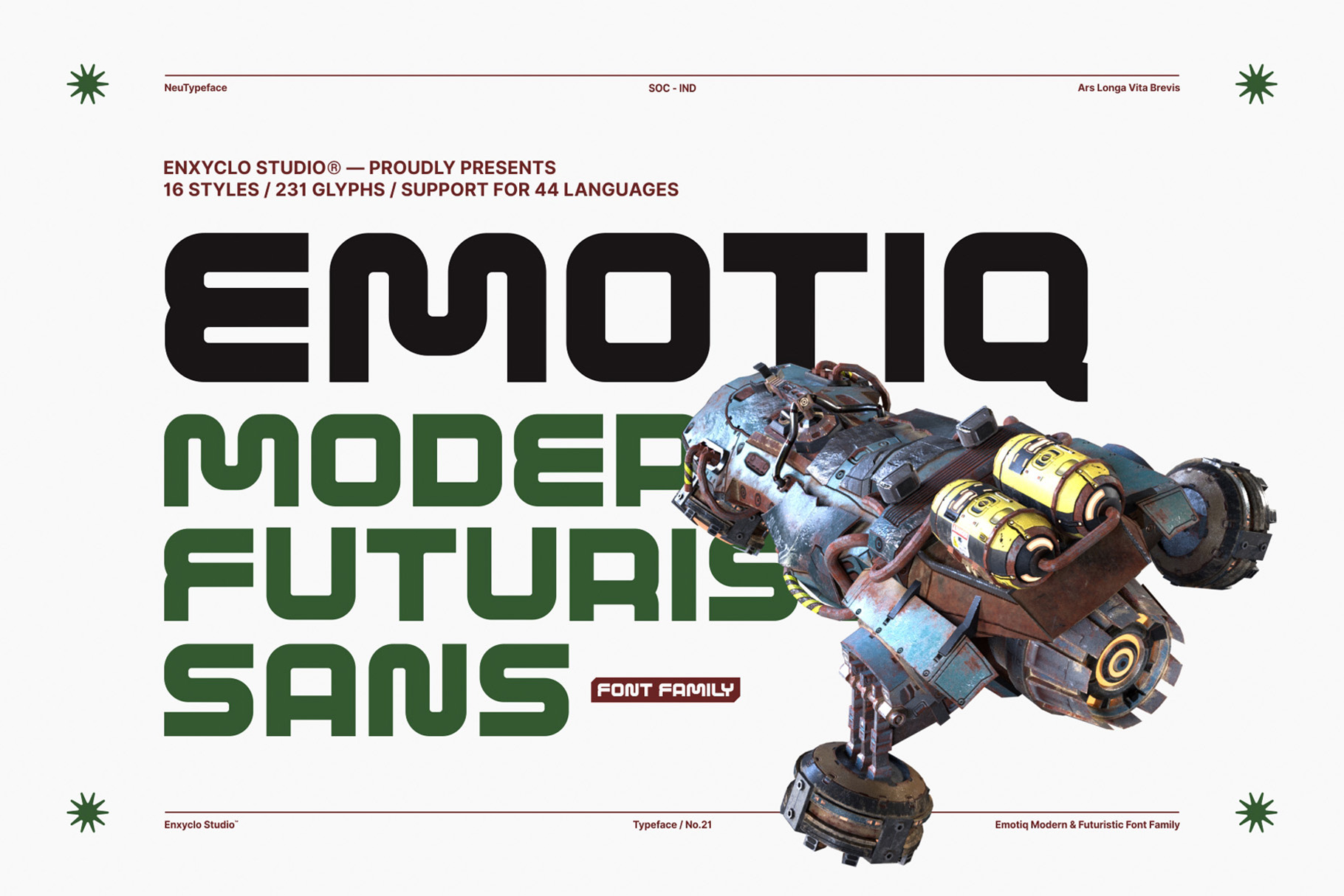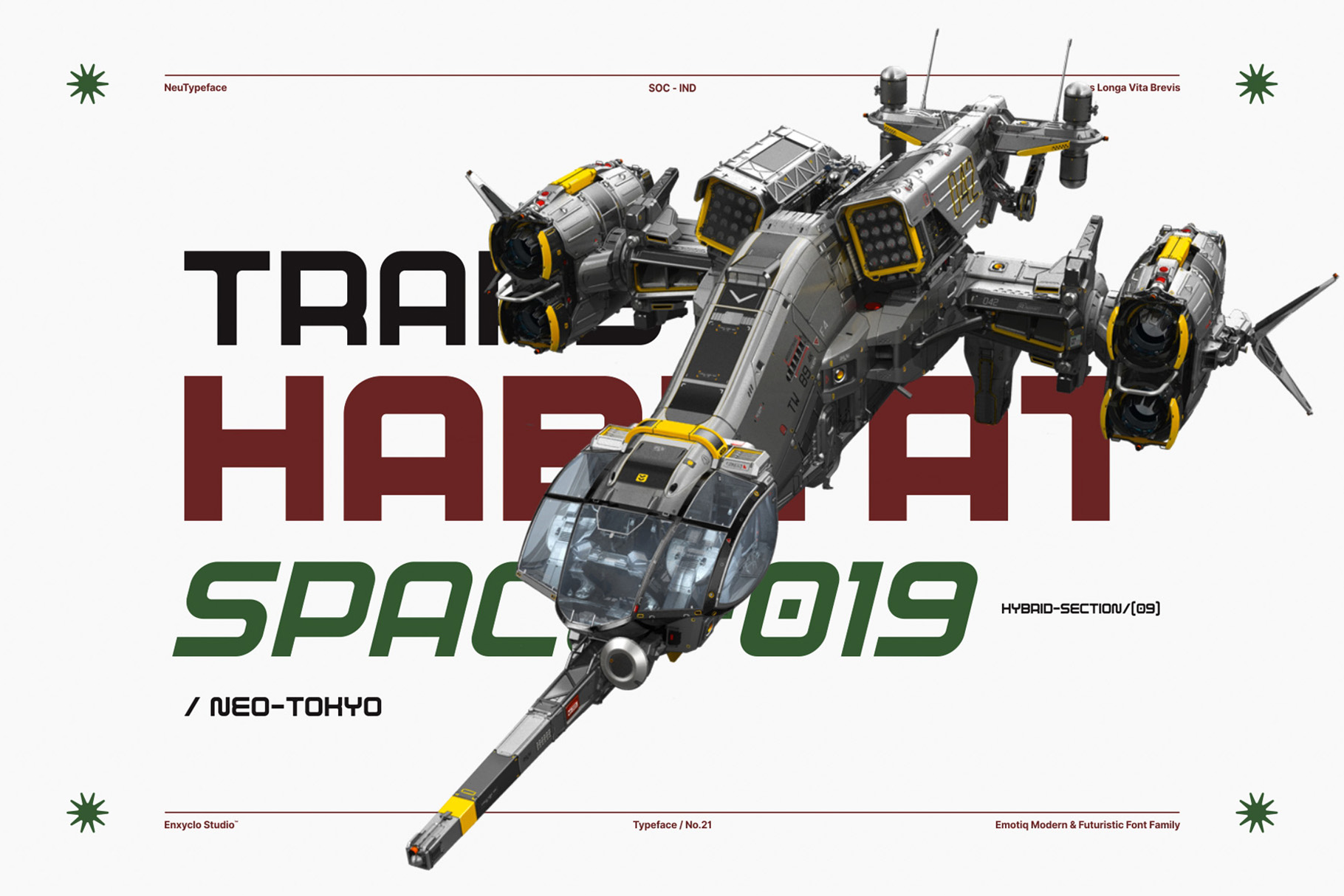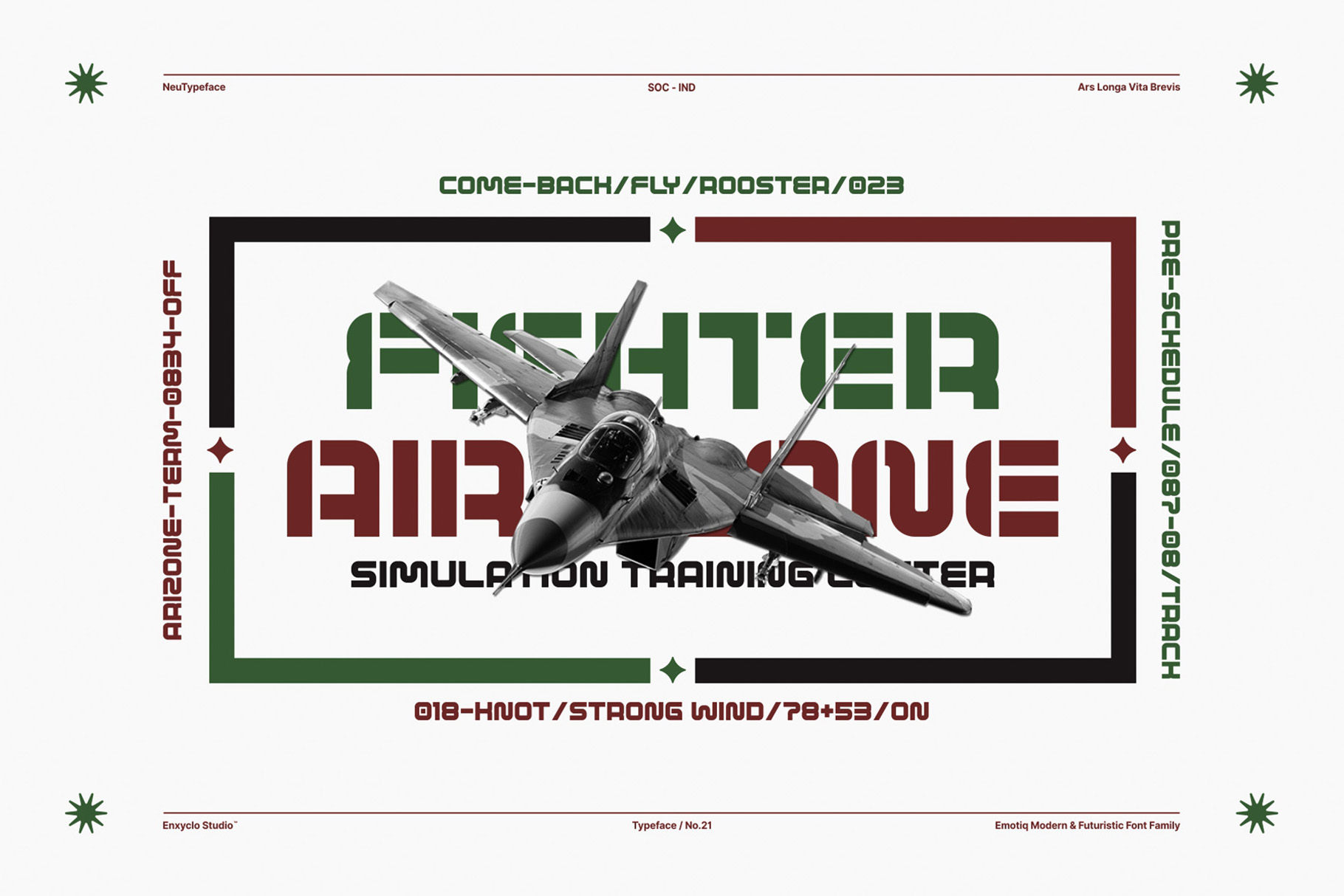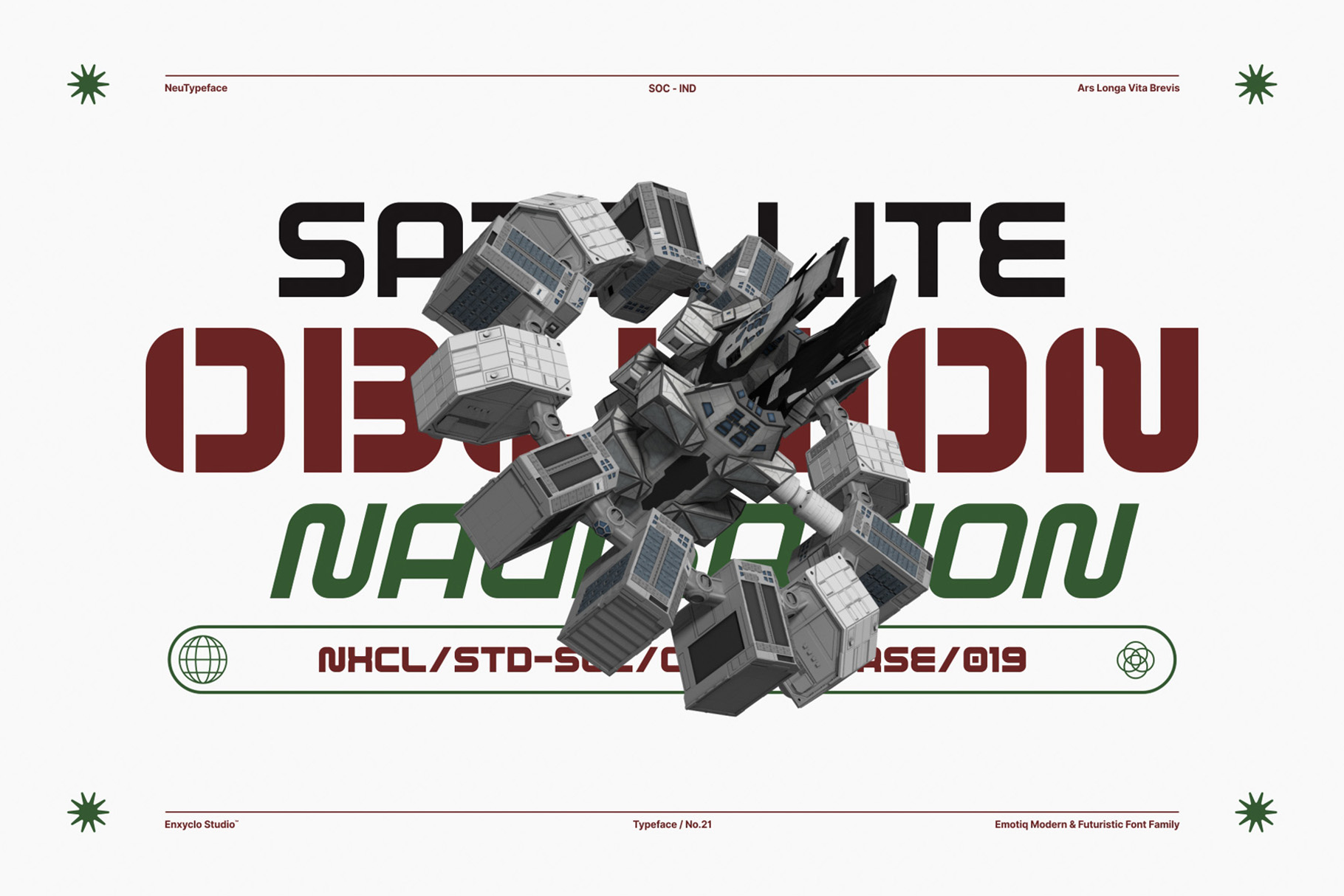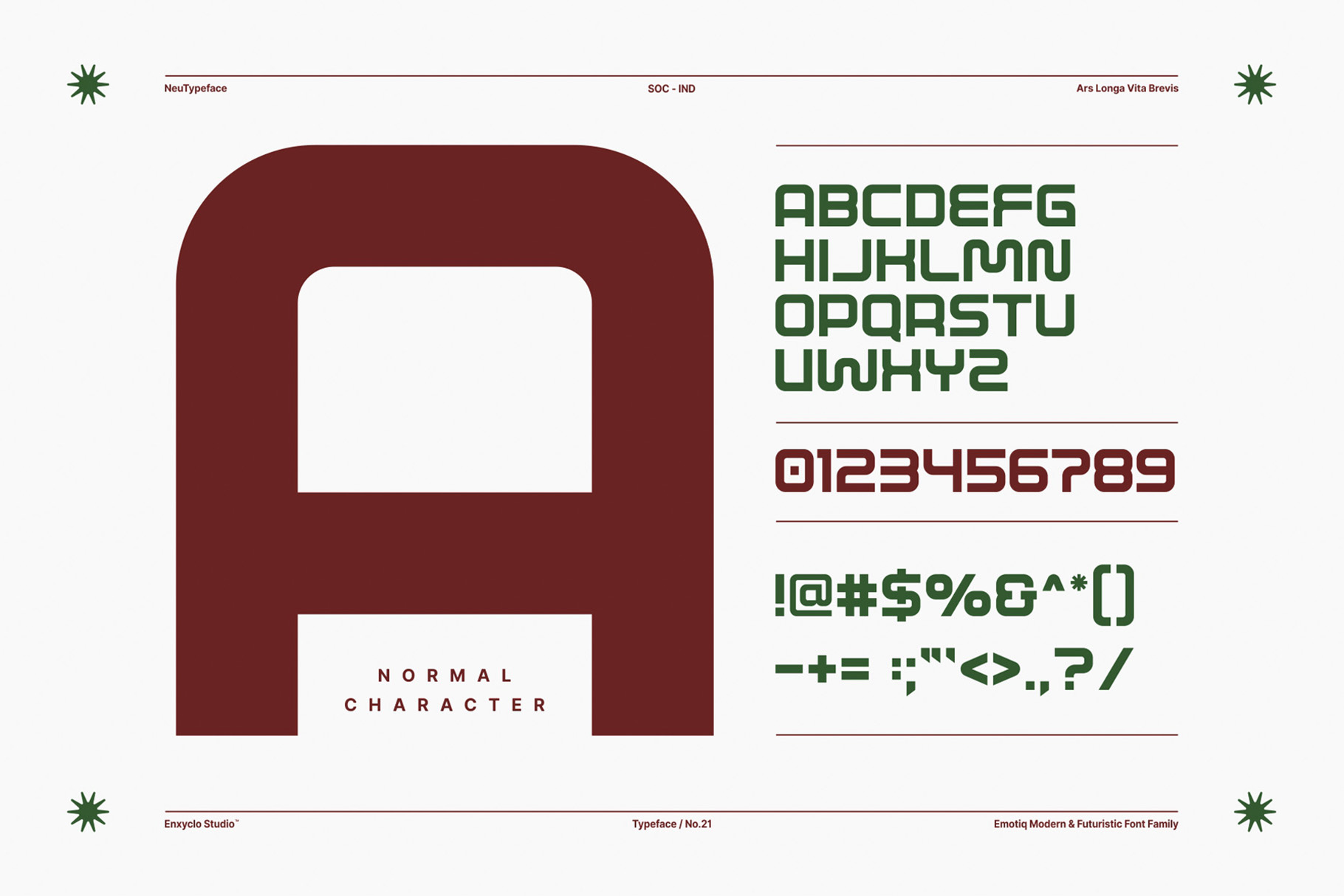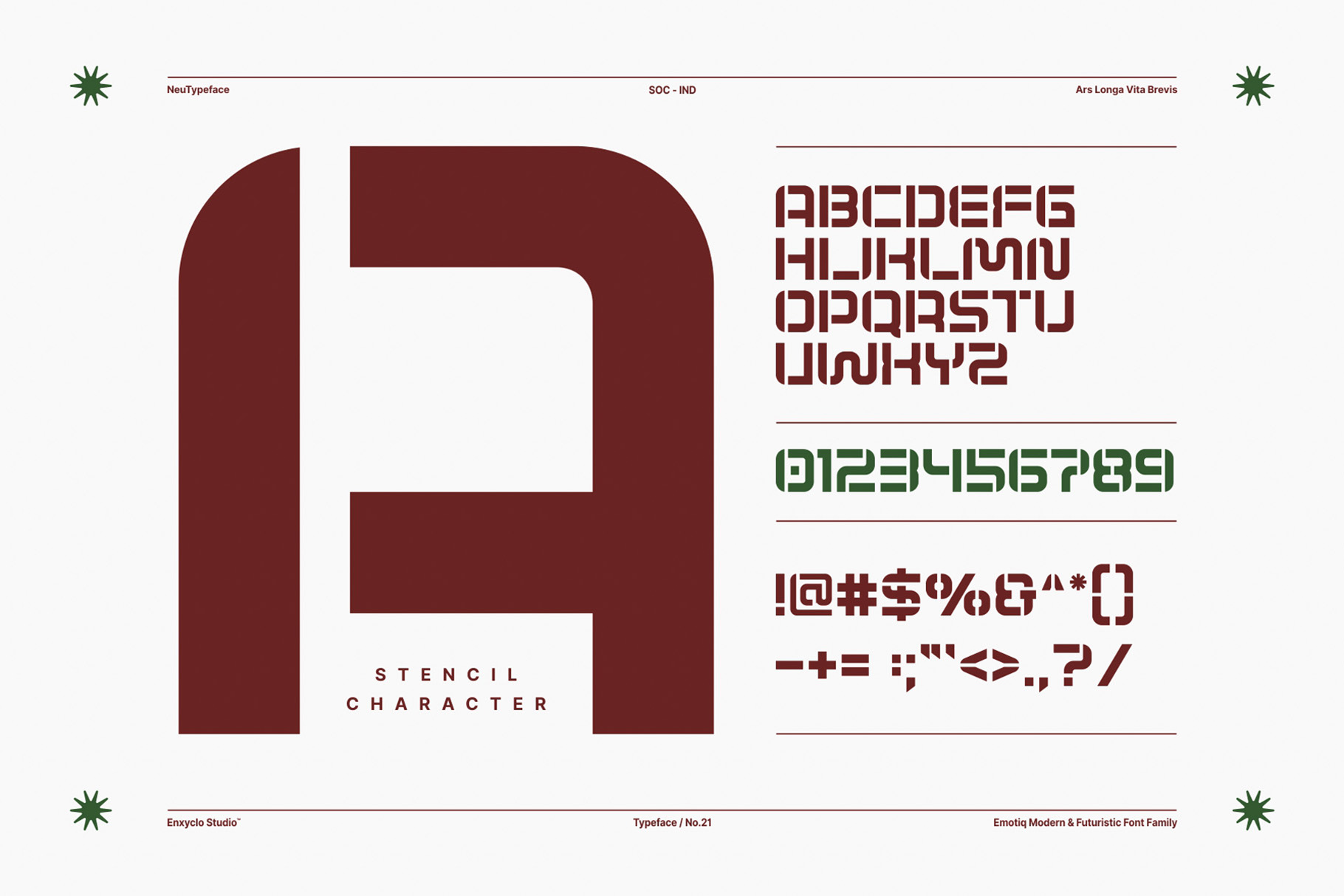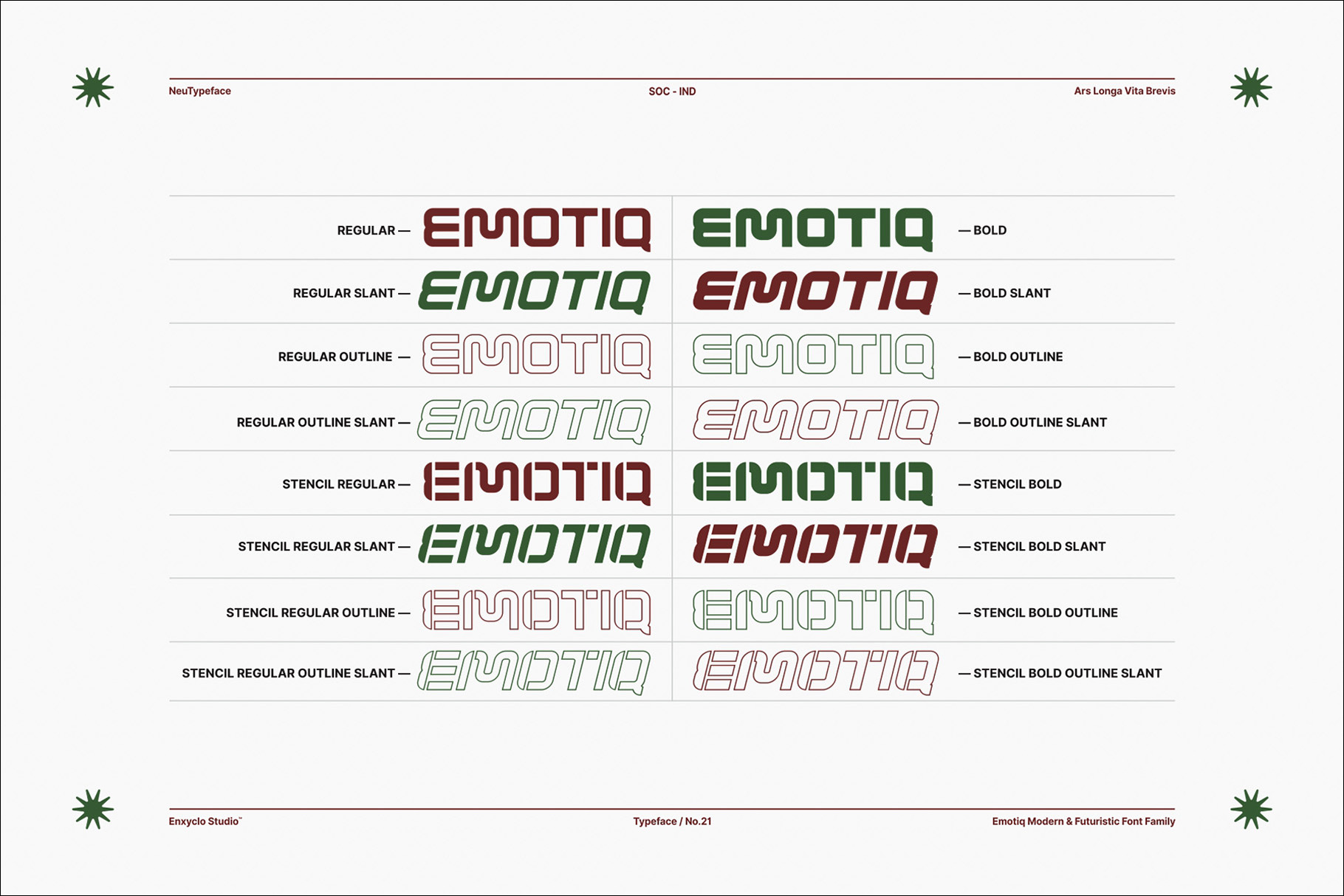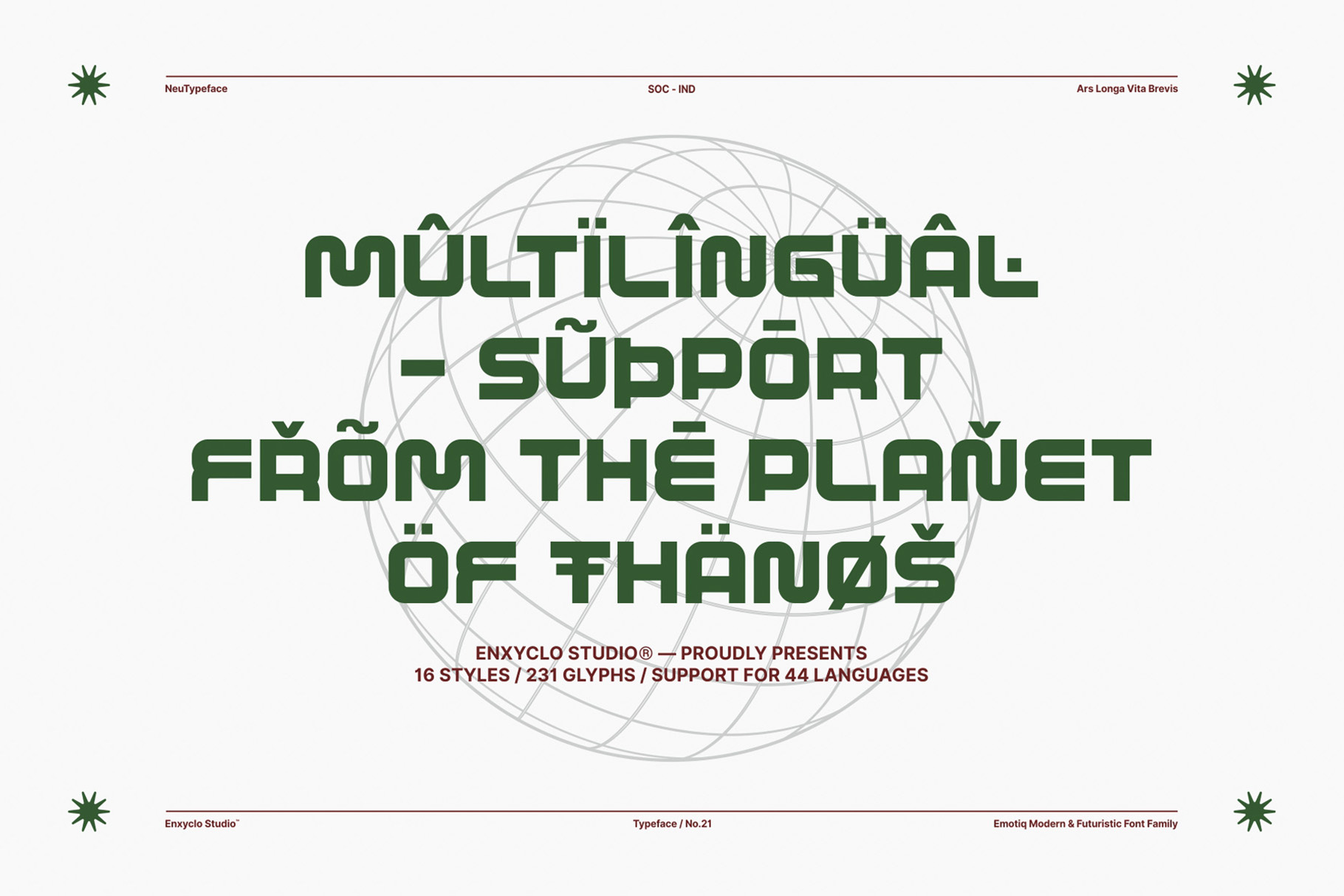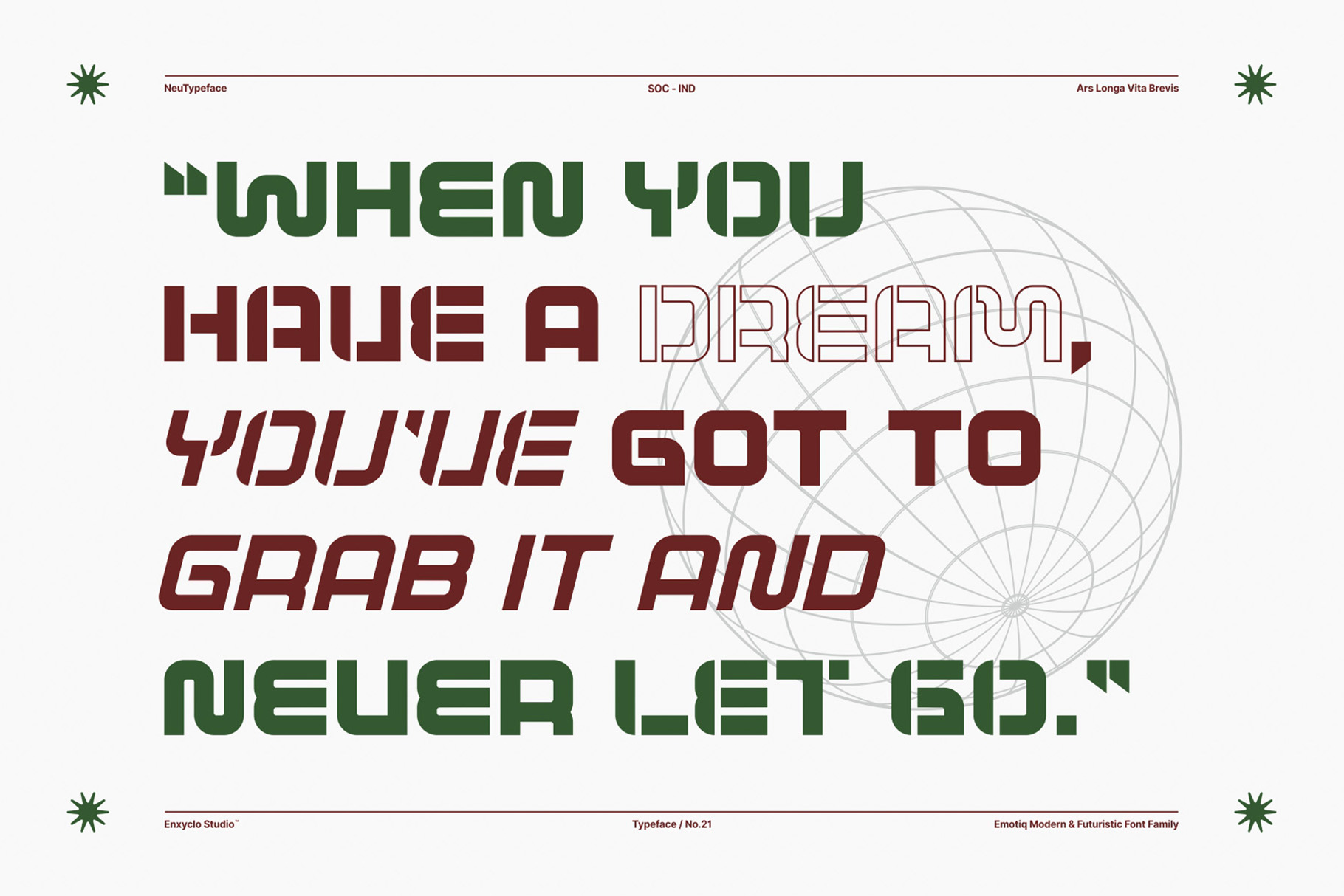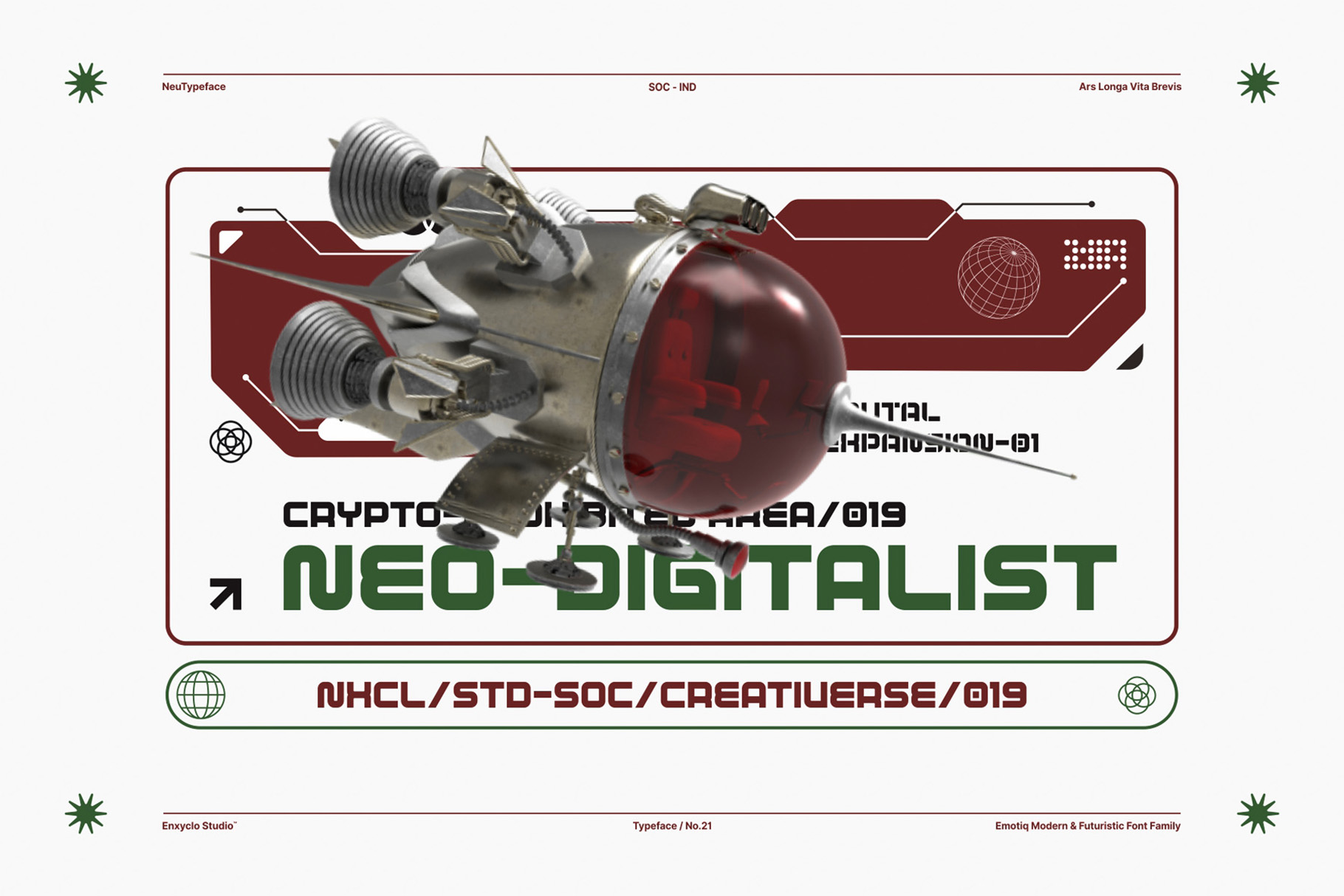
Emotiq – Futuristic Techno Cyberpunk Font
EMOTIQ is modern and futuristic sans display font with multiple styles. With this unique typeface, you can be even more expressive in your design projects. It is perfect for headline, billboard, magazines, website, titles, poster, branding, and logos. With this beautiful font, absolutely you can make your project stand out from the rest. See the previews above to get some inspiration on how to use them.
16 Styles: Regular, Slant, Outline, Outline Slant, Bold, Bold Slant, Bold Outline, Bold Outline Slant, Stencil Regular, Stencil Regular Slant, Stencil Regular Outline, Stencil Regular Outline Slant, Stencil Bold, Stencil Bold Slant, Stencil Bold Outline, and Stencil Bold Outline Slant.
Contains 231 Glyphs for Each Style (Total: 3.696 Glyphs)
Uppercase, Numeral, Punctuation & SymbolMultilingual Support.